Roblox horror game fonts play an important role in creating a terrifying first impression for players. In horror-themed Roblox games, the font style can instantly set the mood, build tension, and make the game feel more immersive. Whether you are designing a zombie survival game, a haunted house adventure, or a creepy paranormal experience, choosing the right typography helps your game stand out and feel more memorable.
In this article, we’ll explore the importance of fonts in Roblox horror games and recommend five fonts: Blood Melt, Freakdrip, Ghoulie Script, Slime Rage, and Zombox to help your game title stand out. Let’s dive into how each font can enhance your Roblox horror game and help set the right chilling tone.
The Role of Fonts in Roblox Horror Games
1. Establishing the Atmosphere
Fonts in Roblox horror games are more than just a design element, but they are key in shaping the mood. The right font can create tension, fear, and excitement, signaling to players that they are about to experience something terrifying. A jagged, distressed font will immediately make players feel uneasy, while a smooth, elegant script may add a touch of creepy elegance to the game’s title.
2. Enhancing the Immersion
Fonts are visuals that help enhance immersion in a game. In a horror game, fonts must work in harmony with the visuals and audio. A fitting font will complement your creepy art direction and set the tone for players as they explore the dark corners of your game world.
3. Making the Game Stand Out
With hundreds of Roblox games to choose from, unique fonts help make your game stand out. Whether you’re creating a title for a zombie apocalypse, a haunted house, or an otherworldly horror experience, the font is one of the first things players will notice. A well-chosen font can make your game memorable and increase its appeal.
Best Roblox Horror Game Fonts for Scary Titles
Let’s explore five of the best Roblox horror game fonts that will help you make a lasting impact with your title.
1. Blood Melt – A Bloody Roblox Horror Game Font
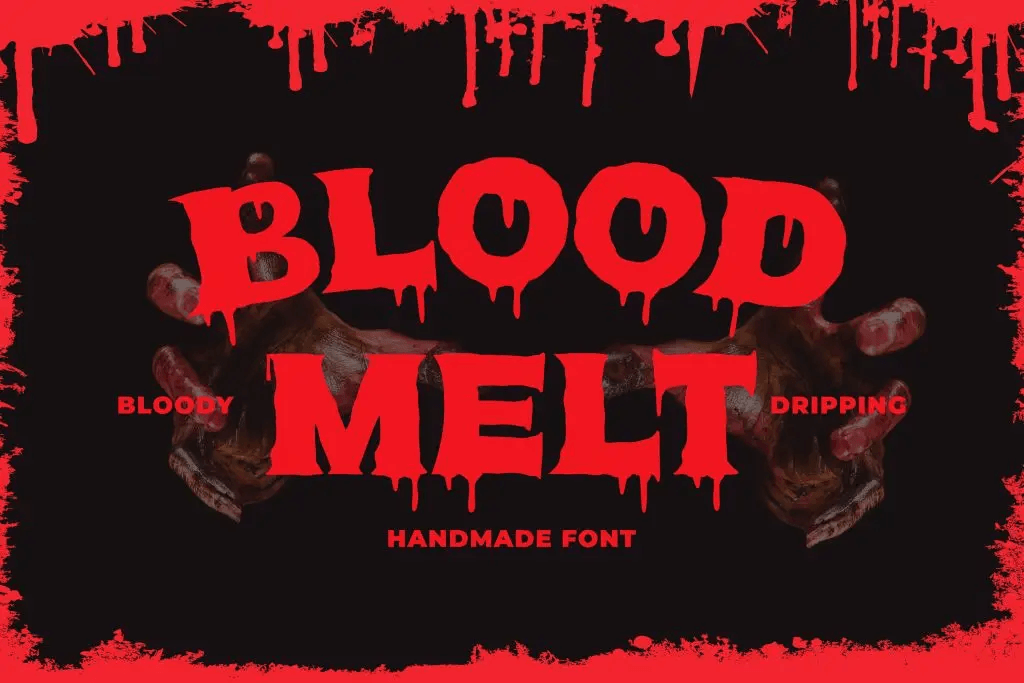
Font Overview:
Blood Melt is a dripping, gory font that embodies everything unsettling about a horror game. The sharp, uneven edges and drips of blood-like details make it perfect for games that focus on grotesque, violent, or gruesome themes. This font is loud, bold, and packs an emotional punch, making it a great choice for any horror game title.
Why It’s Great for Roblox Horror Games:
- The dripping blood effect immediately conveys horror, perfect for games about death, zombies, or dark rituals.
- Its bold and jagged design creates a sense of urgency and unease.
- Great for titles that need to grab players’ attention immediately.
Use Case:
Blood Melt works perfectly for a Roblox horror game centered around violent supernatural forces, blood-curdling mysteries, or a zombie apocalypse. It will definitely set the tone for a gruesome and chilling experience.
2. Freakdrip – Creepy Dripping Font for Horror Games
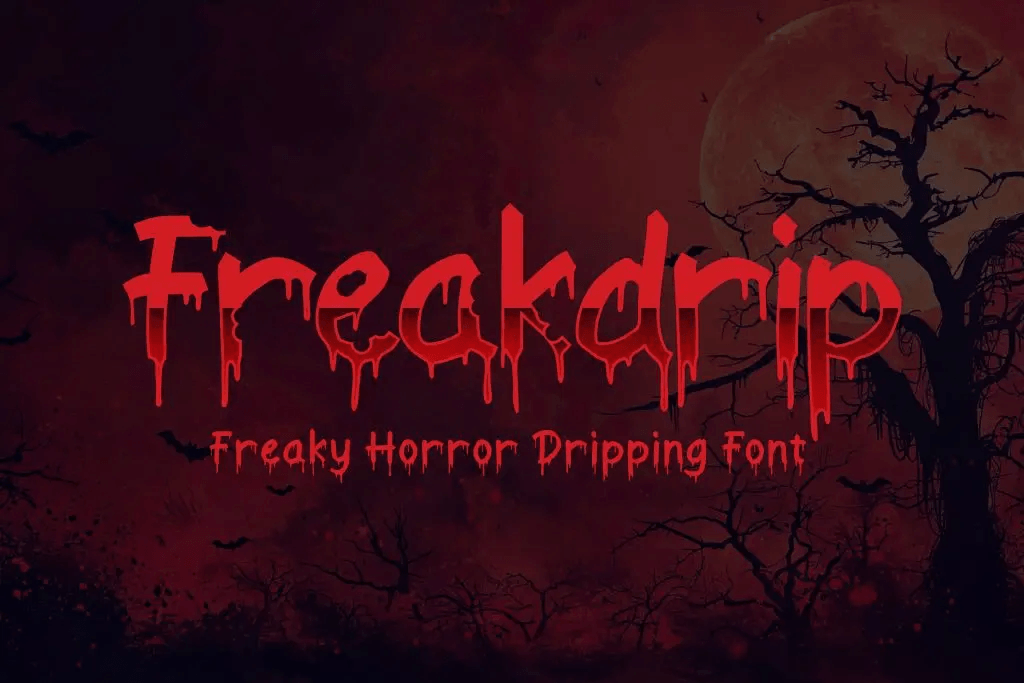
Font Overview:
Freakdrip is a horror font that oozes with terror and chaos. With its sharp, dripping letters, this font is ideal for games that aim to evoke fear, dread, and grotesquerie. Freakdrip combines dripping blood with eerie, distorted shapes, giving your game title a truly freaky vibe.
Why It’s Great for Roblox Horror Games:
- The uneven, messy look of Freakdrip adds a sense of wild terror, perfect for unsettling or chaotic horror scenarios.
- Its dripping, fluid-like design enhances the atmosphere of horror.
- The sharpness and irregularity make it stand out in bold titles.
Use Case:
Freakdrip is perfect for a Roblox game that involves supernatural forces, demons, or grotesque horror. It’s the font to use for creating a feeling of creeping dread or chaos in your game world.
3. Ghoulie Script – Ghost-Inspired Roblox Horror Font
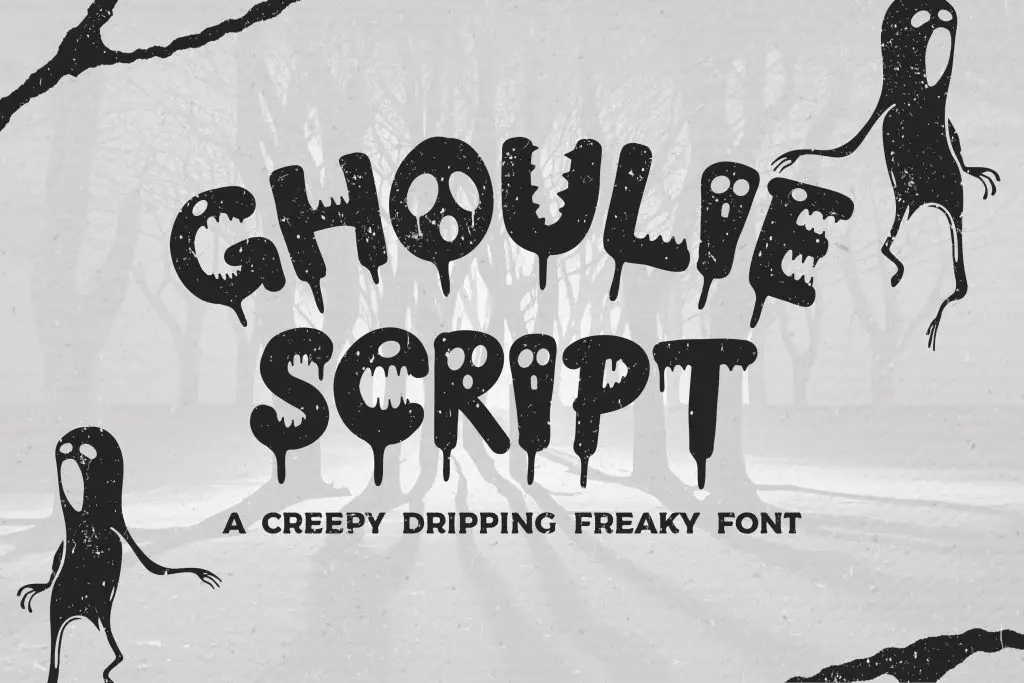
Font Overview:
Ghoulie Script is a horror display font full of character. Each letter looks like it’s melting and dripping like slime, with creepy details such as hollow eyes peering from inside the glyphs. It has a ghastly and unsettling appearance, making it ideal for horror games that feature ghosts, paranormal activity, or sinister forces. The script-like quality of the font gives it an eerie, almost unnatural feel.
Why It’s Great for Roblox Horror Games:
- The script style adds a creepy, unsettling touch, perfect for haunted or ghost-themed games.
- Its irregular, dripping effect makes it feel like it’s written in blood, further enhancing its horror vibe.
- Works well for both titles and in-game text.
Use Case:
Ghoulie Script is best used for a Roblox horror game set in a haunted mansion, a ghost story, or a supernatural thriller. It’s great for creating an unsettling atmosphere that will keep players on edge.
4. Slime Rage – Slime Monster Font for Roblox Horror Games
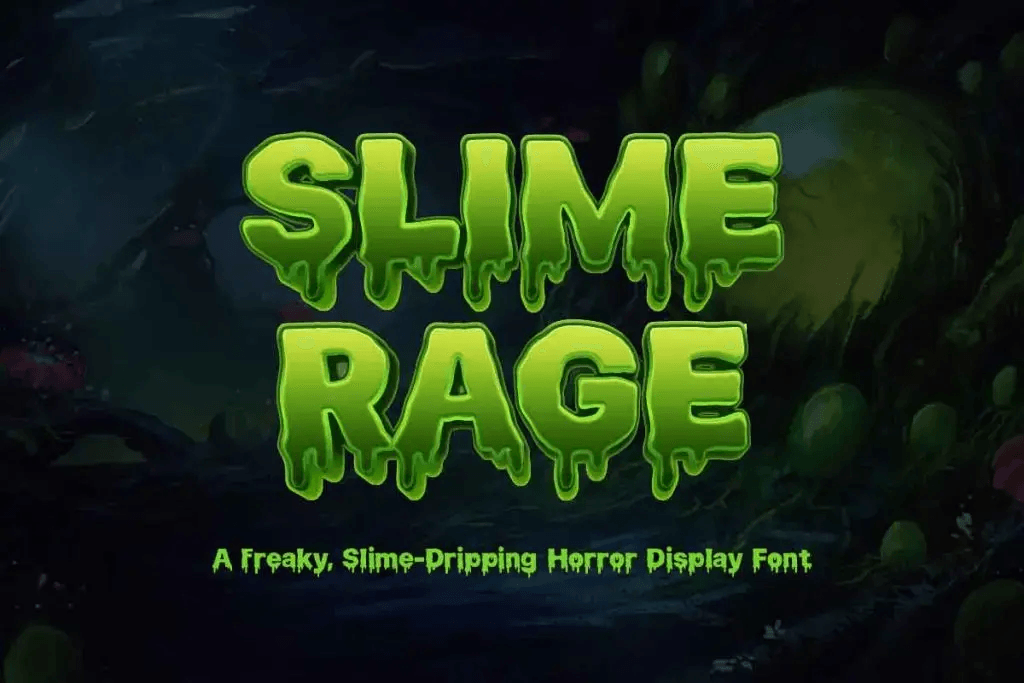
Font Overview:
Slime Rage is a bold and freaky display font dripping with spooky energy. Inspired by slimy textures and horror movie vibes, it combines organic, uneven letterforms with a gooey, melting effect. Each glyph looks like it’s oozing off the screen. The font’s thick, gooey letters create an almost sickening effect, making it perfect for games involving slime, grotesque creatures, or nasty environments. It’s a great choice for those looking to add a revolting element to their game.
Why It’s Great for Roblox Horror Games:
- Slime Rage’s slimy and dripping look fits perfectly with games that involve gooey creatures, disgusting monsters, or toxic environments.
- The thick, uneven shapes make it visually striking and hard to ignore.
- Ideal for games that focus on repulsion, fear, and contamination.
Use Case:
Slime Rage is ideal for a Roblox horror game where players explore a world filled with creepy, slimy creatures or toxic wastelands. Its gooey design will help establish the revolting and disturbing atmosphere you’re aiming for.
5. Zombox – Zombie Style Font for Horror Game Titles
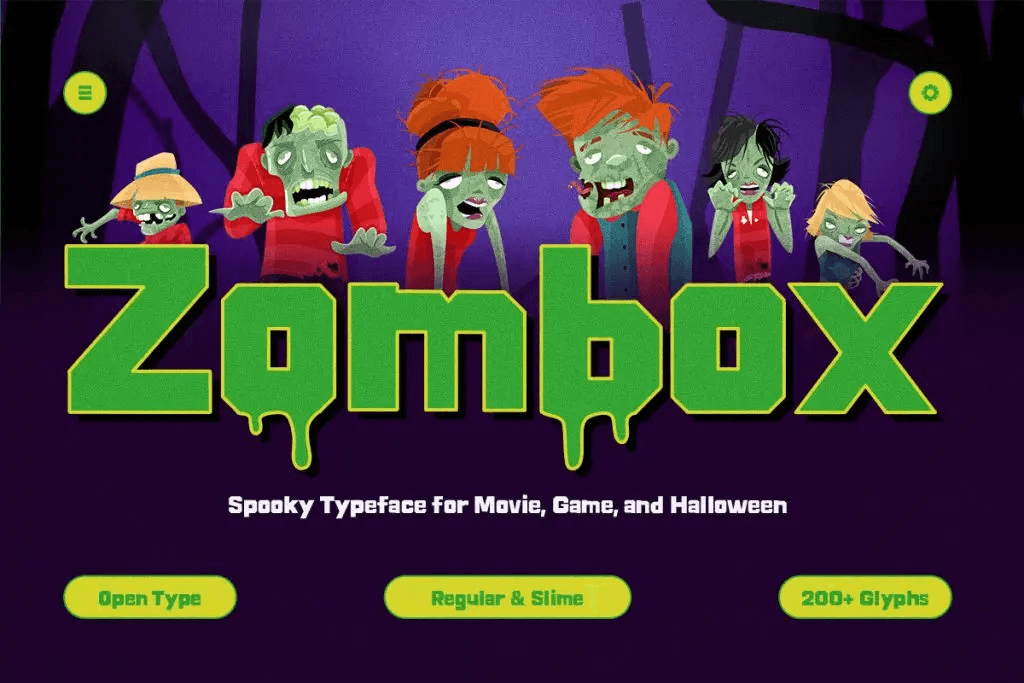
Font Overview:
Zombox is a spooky zombie-inspired display typeface built for designers who want to capture the raw, undead energy of horror. With its jagged, decayed letterforms and spine-chilling vibe, Zombox stands out, making it ideal for eye-catching game titles.
Why It’s Great for Roblox Horror Games:
- Zombox’s bold, blocky letters are perfect for large, attention-grabbing titles.
- The slimy, drippy details add a gross and creepy effect, making it great for zombie- or monster-themed horror games.
- It has a fun yet horrifying vibe, which works for both serious and campy horror games.
Use Case:
Zombox is a great choice for Roblox games that revolve around zombies or post-apocalyptic survival. Its bold and dramatic design will grab the attention of players and let them know they’re about to enter a world full of undead horrors.
Looking for more inspiration for horror typography? You can also explore horror game design trends on Pinterest.
Read Related Articles
For more game-inspired typography ideas, read “Roblox Horror Game Font Tips for Creepy but Readable Titles.” This article explains how to choose spooky fonts that create a scary atmosphere while keeping game titles clear, readable, and clickable.
Conclusion
When designing a Roblox horror game, choosing the right font is just as important as creating a great story or setting. Fonts set the atmosphere, establish the tone, and make your title memorable. By using fonts like Blood Melt, Freakdrip, Ghoulie Script, Slime Rage, and Zombox, you can ensure that your game grabs the attention of players and immerses them in the horror experience.
These fonts offer different styles to match a variety of horror themes, from grotesque monsters and slime-filled environments to eerie ghost stories and zombie apocalypses. Don’t underestimate the power of typography. Select the font that fits your game’s atmosphere and prepare to give your players a spine-tingling experience!